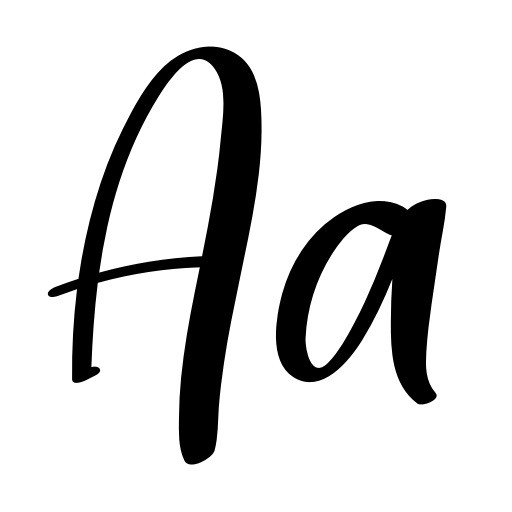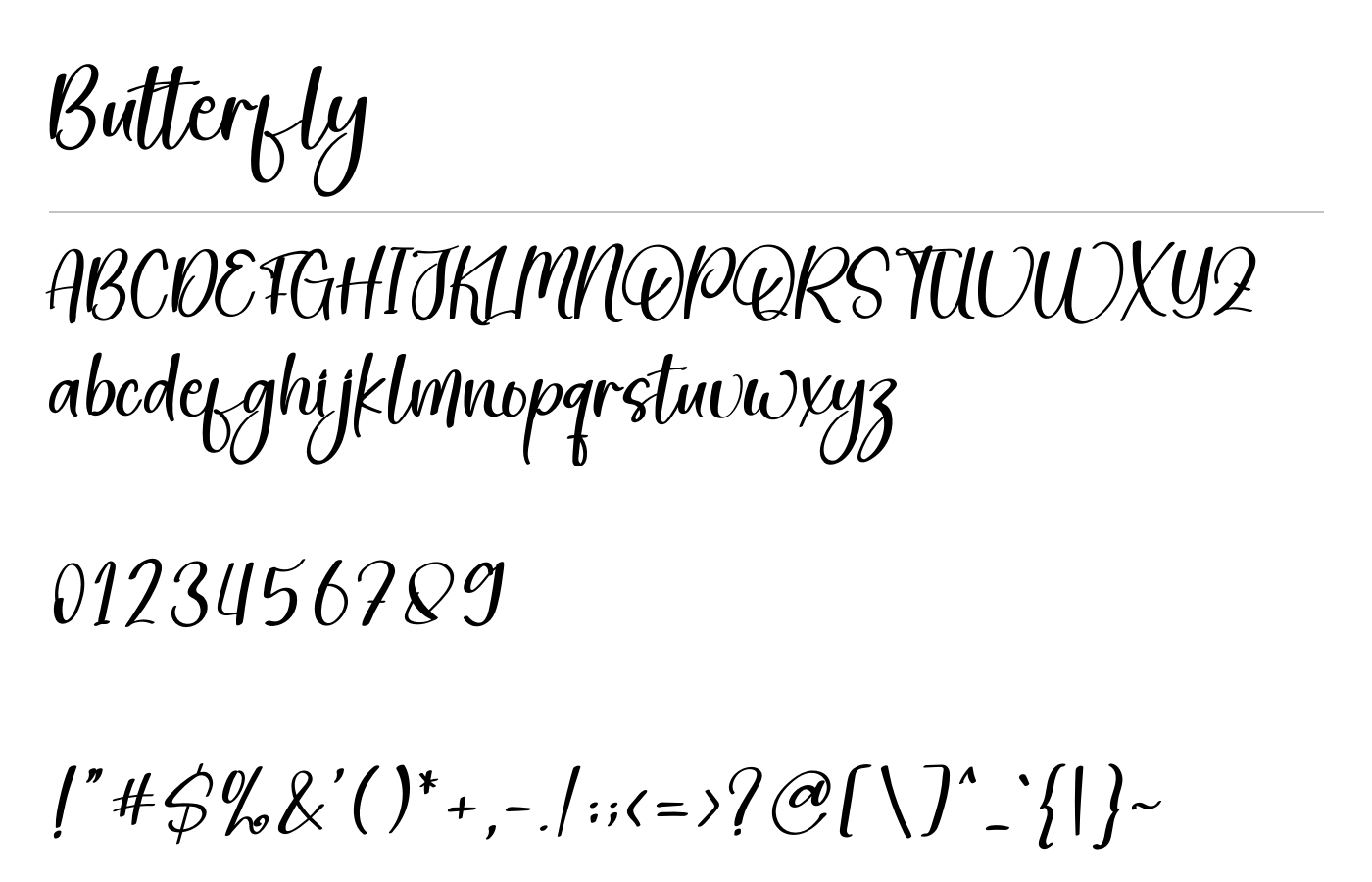
Butterfly is a stylish script font with a modern, elegant feel characterized by its smooth, flowing strokes and moderate contrast. Its slender letterforms and distinctive swashes create a graceful and charming appearance, making it ideal for fashion branding, invitations, and creative headlines that need a personal, yet sophisticated touch. This font shines best in contexts where a delicate, approachable elegance is desired.
Butterfly Font
About Butterfly Font